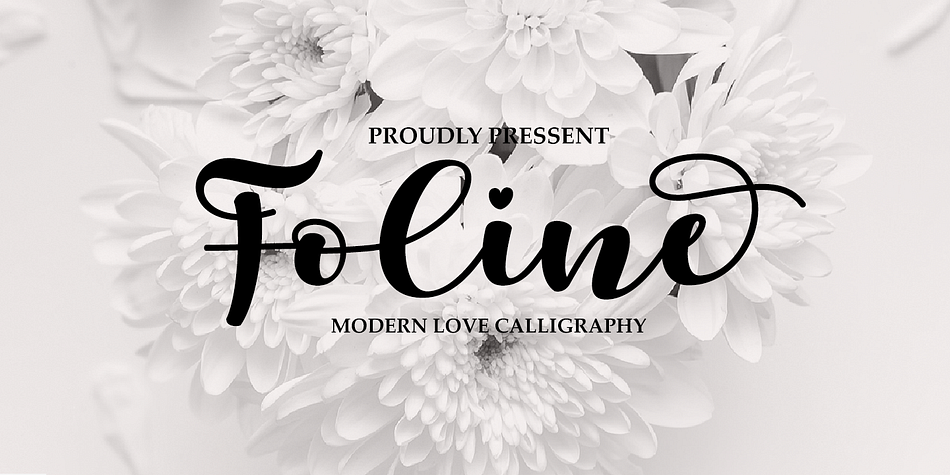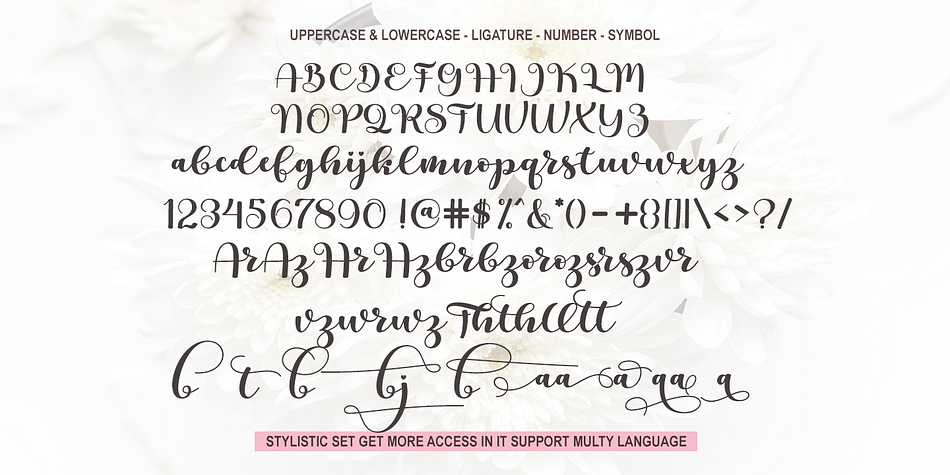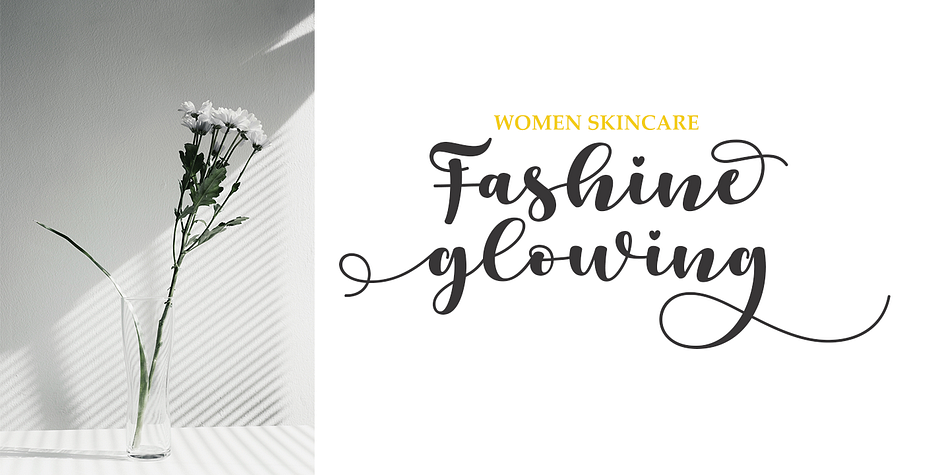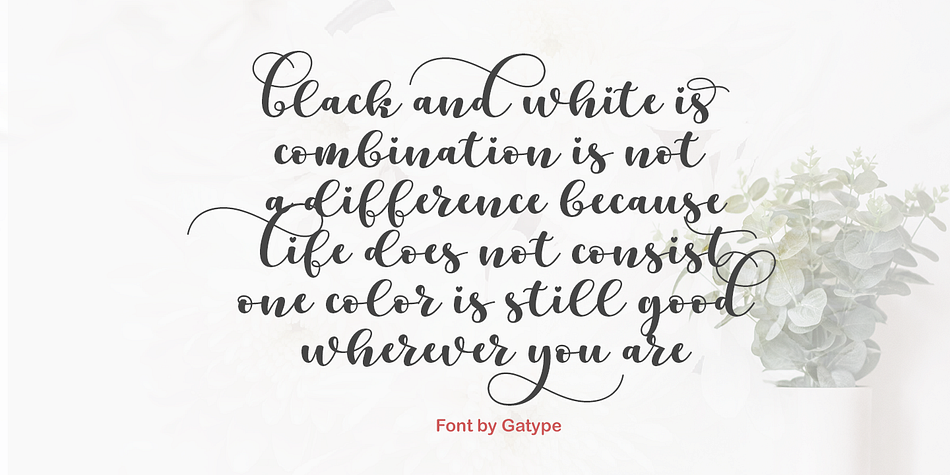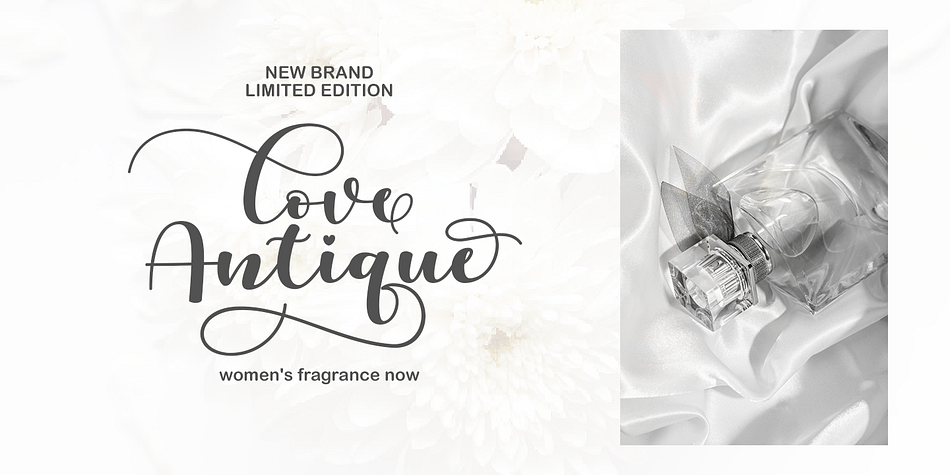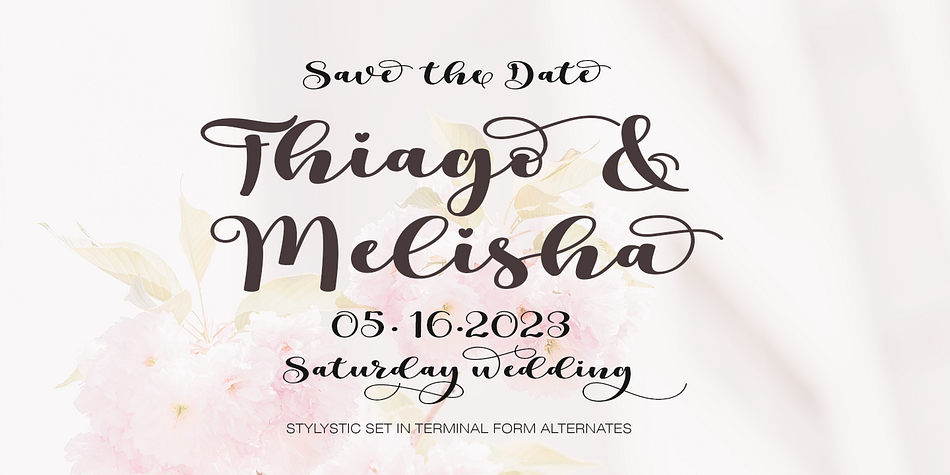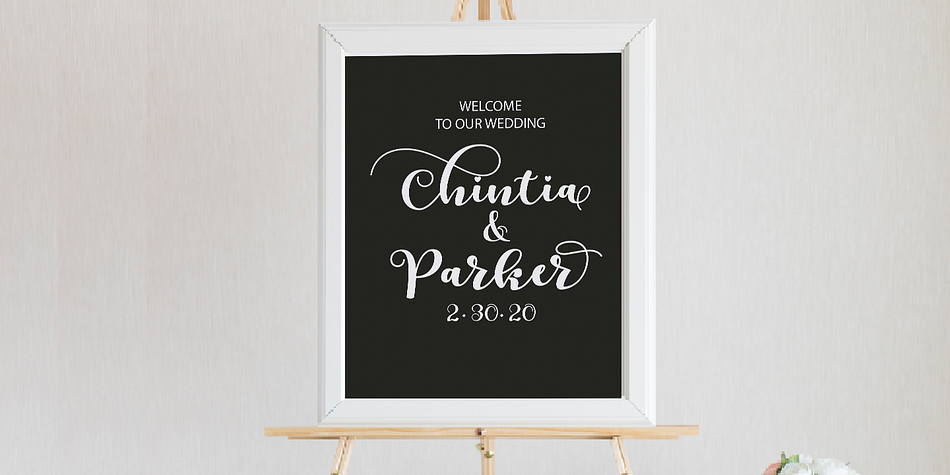
Foline
Foline is a brush script font family published by Gatype.
Foline stylish modern calligraphic script with lots of personality. Beautiful Opentype features with beautiful standard ligatures that replicate natural handwriting. Easily personalize her look with its many alternative glyphs, binders, and swashes. She’s a natural for logo, stationery, and product design projects looking for a dynamic, personal vibe.